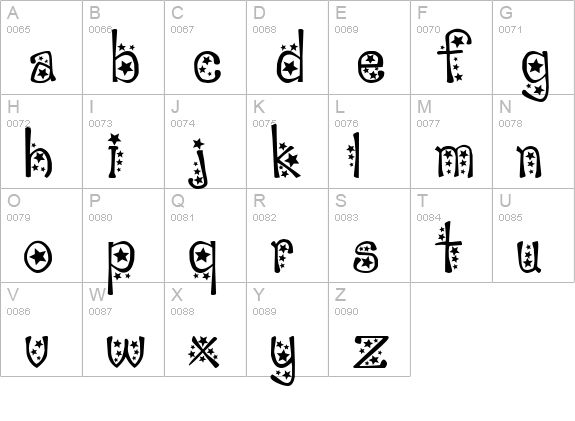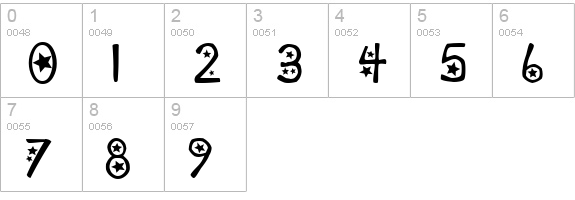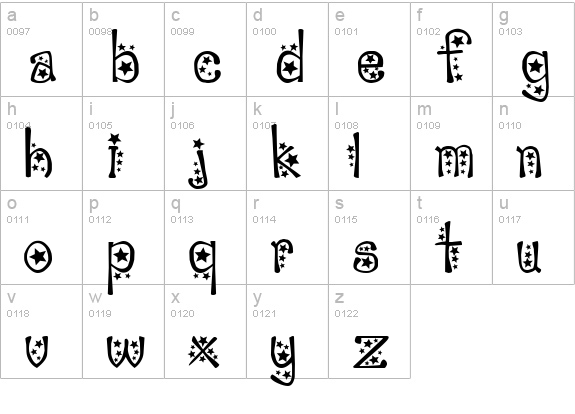
sabrina star Font Details
Sabrina Star Font is a mesmerizing and enchanting typeface that will add a touch of magic to any design project. With its elegant and whimsical letterforms, this font is perfect for creating stunning logos, branding materials, invitations, and more. The graceful curves and intricate details of Sabrina Star Font make it truly stand out from the crowd. What makes Sabrina Star Font even more appealing is that it is available for free! Yes, you heard it right. This stunning typeface can be downloaded at no cost from FontsMarket.com. Whether you are a professional designer or a hobbyist, you can now access this beautiful font without any restrictions. Sabrina Star Font offers a wide range of characters, including uppercase and lowercase letters, numbers, punctuation marks, and special symbols. Its versatile nature allows it to be used in various design projects, from elegant wedding invitations to whimsical children's book covers. This font is designed with utmost care and attention to detail, ensuring that every letter flows seamlessly into the next. The result is a harmonious and visually pleasing typographic experience that will captivate your audience. So why wait? Download Sabrina Star Font today and let your creativity soar. With its free availability at FontsMarket.com, you have no excuse not to add this magical font to your collection. Start creating captivating designs that will leave a lasting impression.